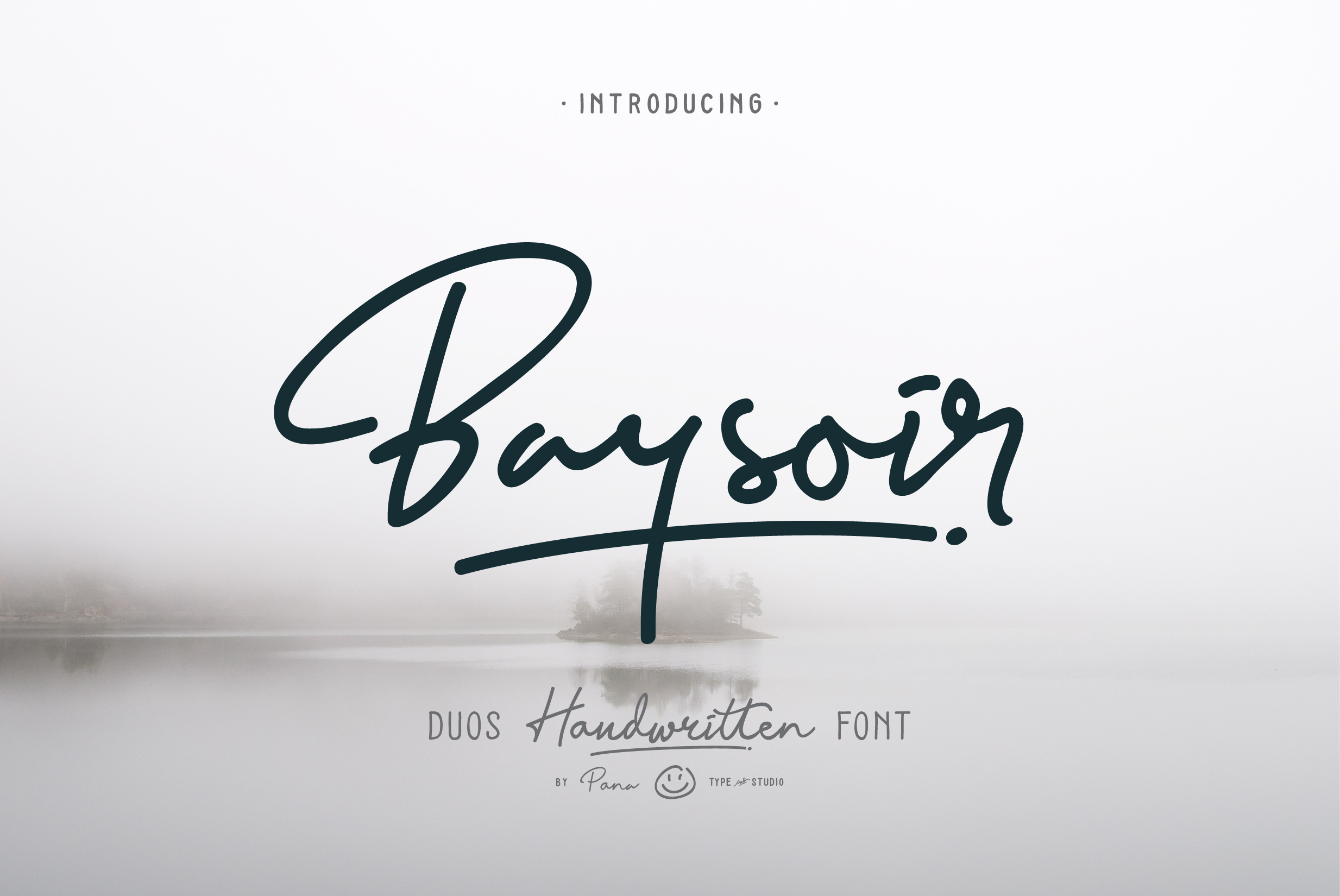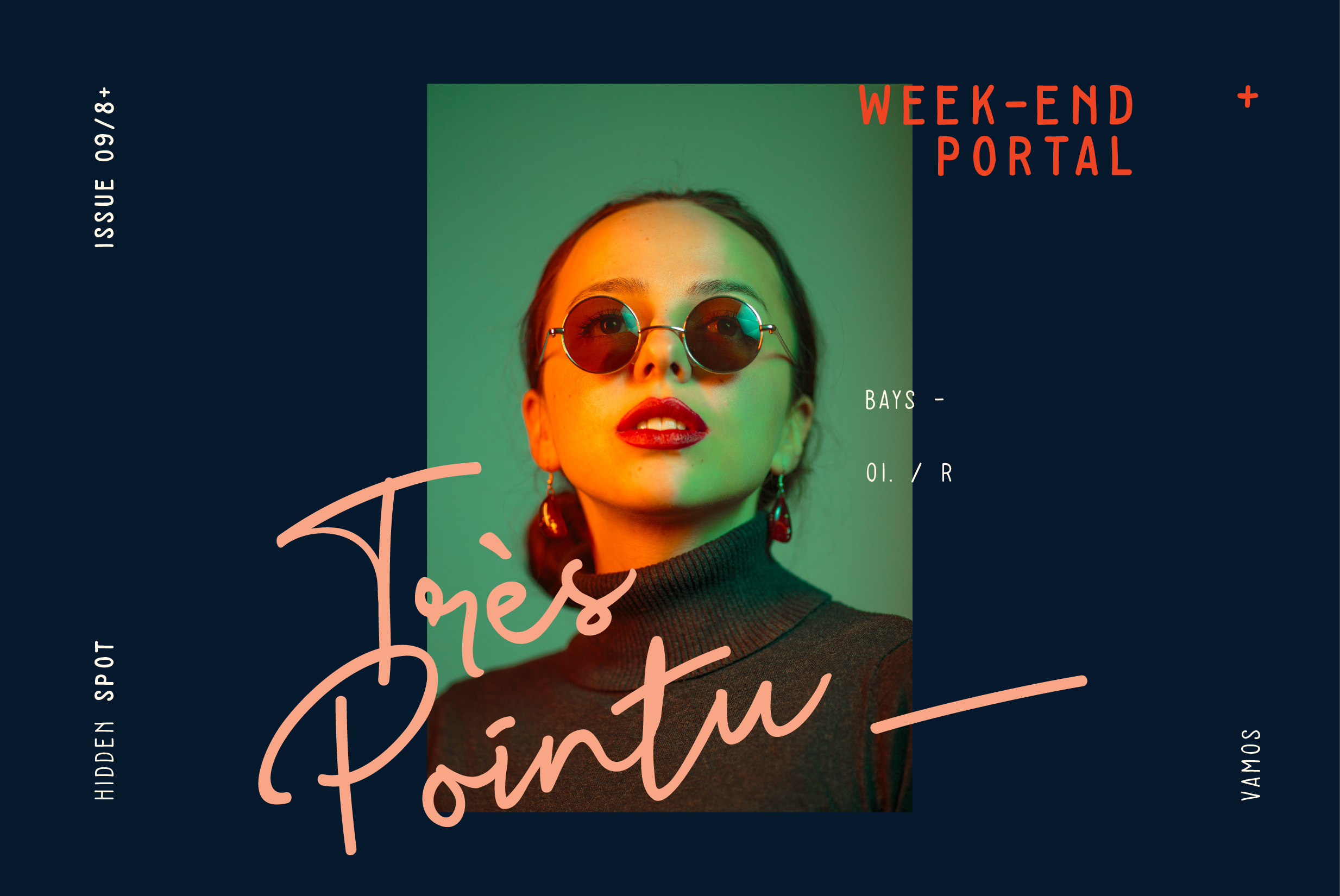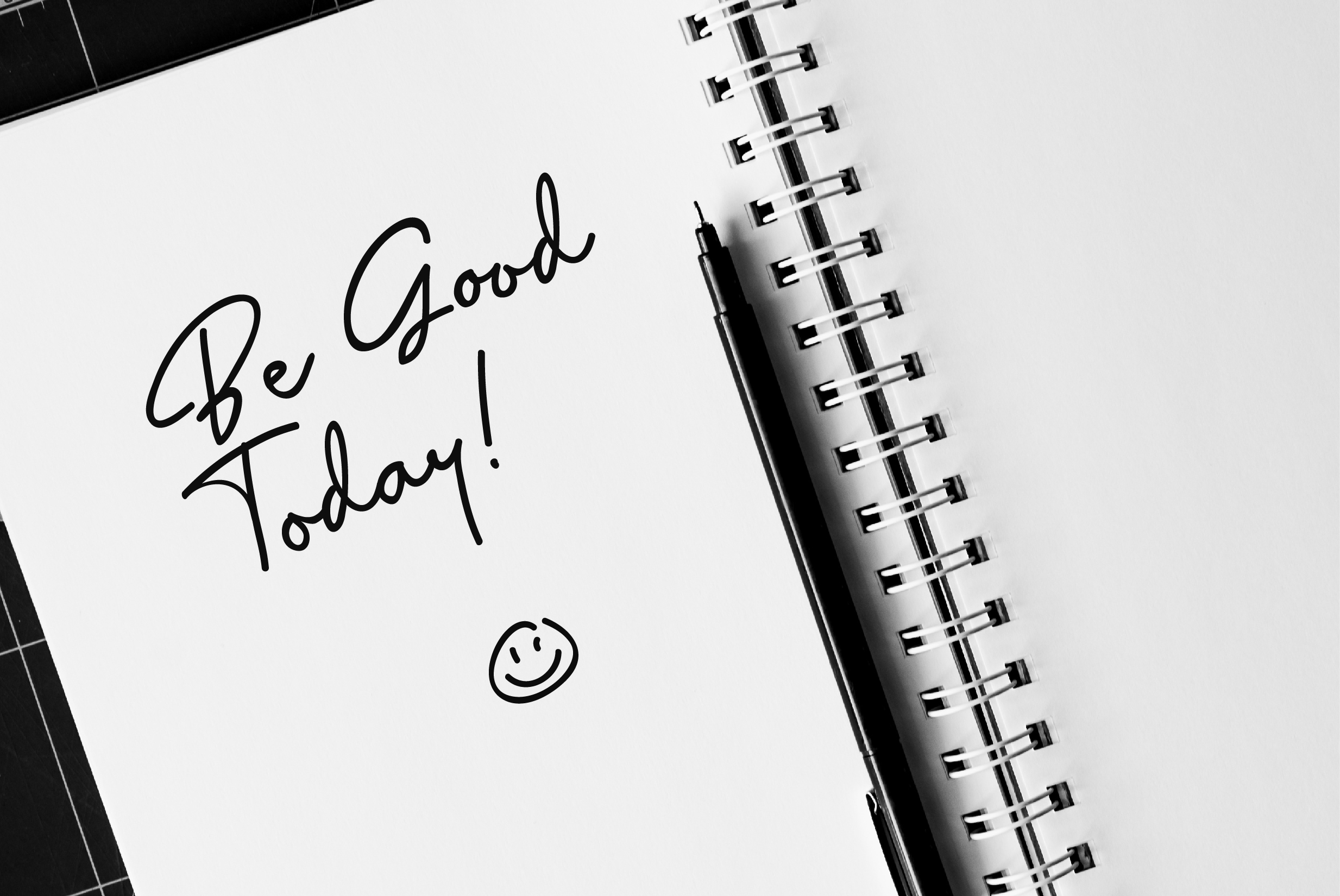
Baysoir Font
About Baysoir Font
Baysoir is a handwritten signature font, available on script and Display Sans serif typeface. These two lovely fonts are perfect in combination to amplify your designs. Developed with a natural and fresh look, hand painted and carefully crafted.